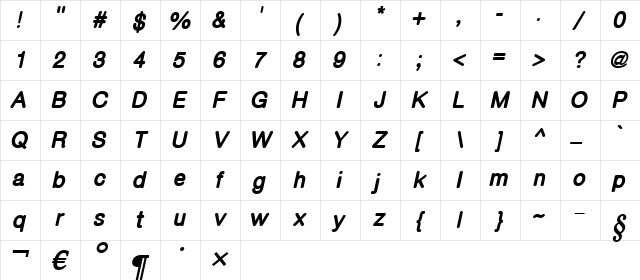
GIST-TMOTChanakya BoldItalic
Design Context for GIST-TMOTChanakya
GIST-TMOTChanakya is a composed and adaptable typeface that performs quietly and consistently across a wide range of design contexts. The slanted form adds forward momentum and visual energy. Its bold stroke weight gives it real presence on the page.
Pro Tip: Use GIST-TMOTChanakya for emphasis, pull quotes, and subheadings where its slanted energy can add rhythm to the layout.